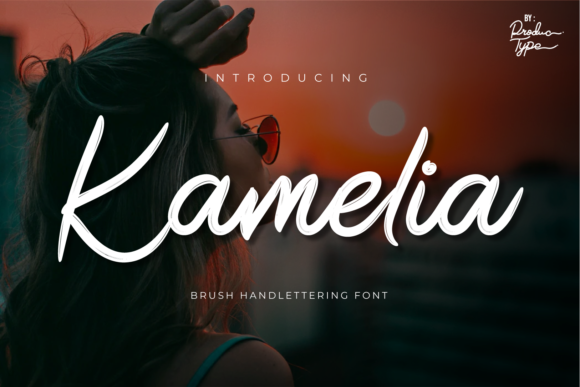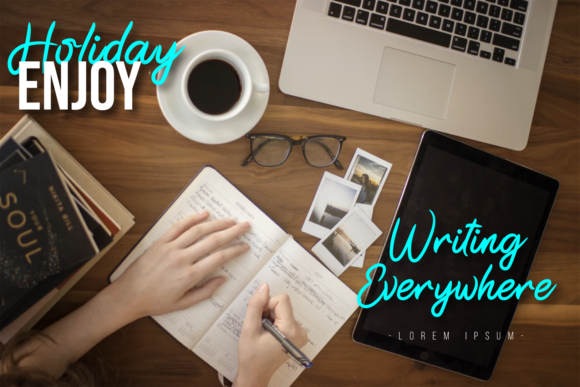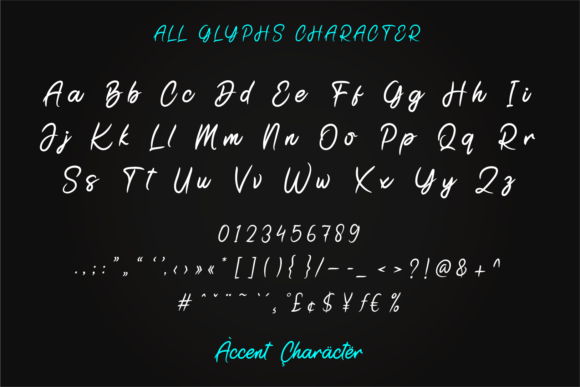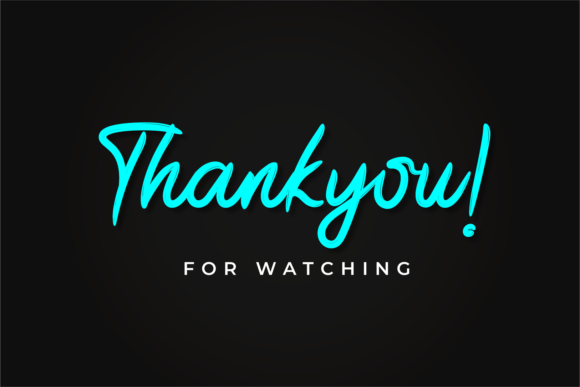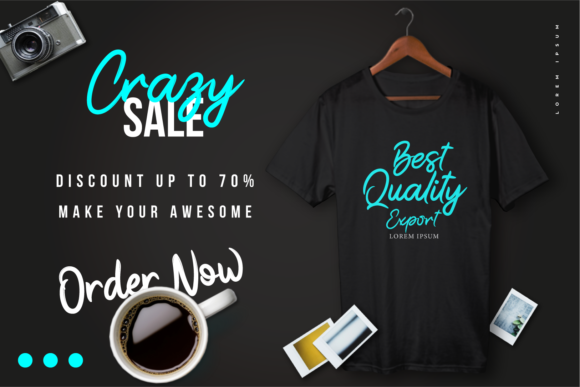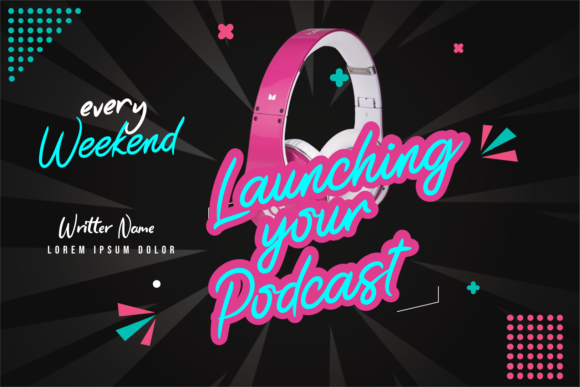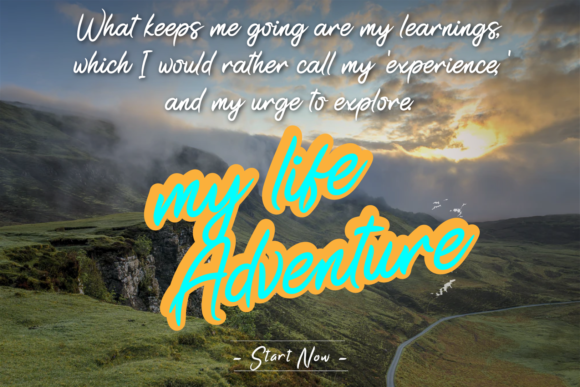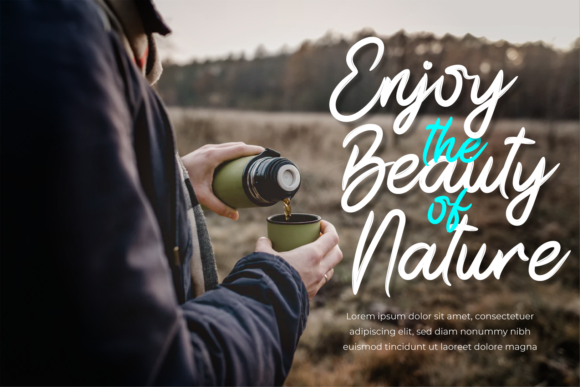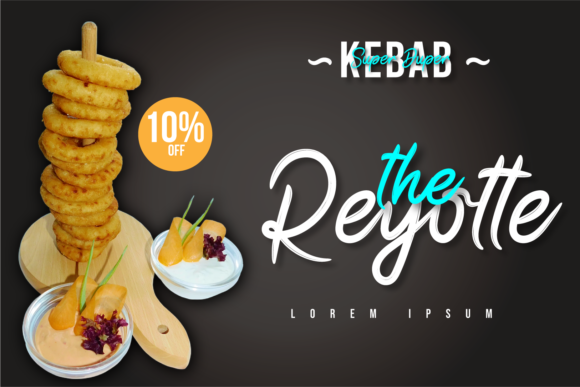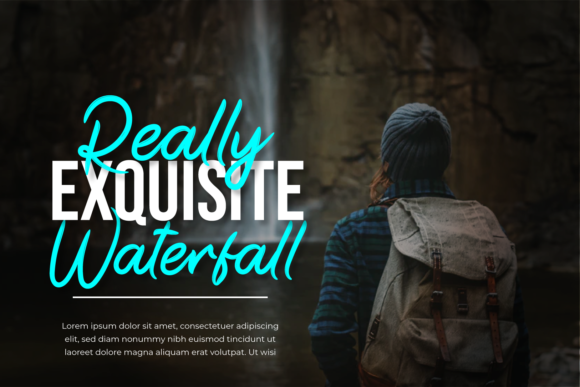
Kamelia Font
About Kamelia Font
Introducing Kamelia: The Sweet, Whimsical, and Flowing Brushed Handwritten Font
Experience the charm of Kamelia, a font that effortlessly combines sweetness, whimsy, and flowing elegance with its brushed handwritten allure. With its trendy style, Kamelia is the perfect choice to embellish your project ideas, adding a touch of enchantment to your designs.
Kamelia’s sweet and whimsical appeal brings a sense of joy and playfulness to your projects. Its flowing letterforms create an air of grace and beauty, making your text dance across the canvas with an alluring charm.
As a brushed handwritten font, Kamelia carries an authentic and handcrafted essence. Each stroke embodies the artistry of handmade beauty, adding a personal touch that sets your designs apart.
The font’s trendy style adds a contemporary edge to your creations. Whether you’re working on invitations, logos, or artistic displays, Kamelia fits seamlessly, infusing your project ideas with a touch of modern elegance.
Embrace the flowing allure of Kamelia as you embark on your creative journey. Let it be the inspiration that breathes life into your designs, adding a whimsical and sweet touch to every piece of art you create.
As you explore the possibilities of Kamelia, you’ll find it to be a font that elevates your project ideas to new heights. Its sweet, whimsical, and flowing brushed handwritten beauty enhances your work, ensuring that your creations are adorned with an enchanting charm.
So, let Kamelia be the font that embellishes your creativity. Embrace its trendy style, and watch as your projects come to life with a touch of grace and allure. With Kamelia as your go-to font, your designs will shine with whimsy, captivate your audience, and leave a lasting impression. Embrace the sweetness of Kamelia and create designs that dazzle and inspire!